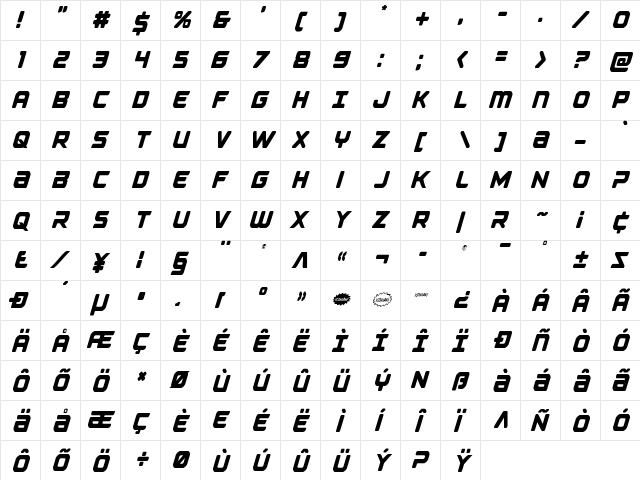
Falcon Punch Condensed Condensed
Design Context for Falcon Punch Condensed Typeface
Falcon Punch Condensed is a composed and adaptable typeface that performs quietly and consistently across a wide range of design contexts. The condensed width makes it efficient for tight spaces without sacrificing legibility.